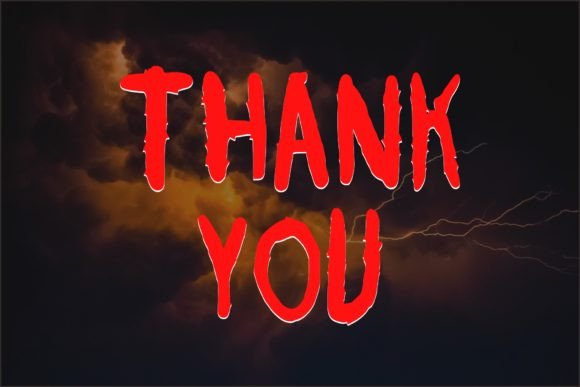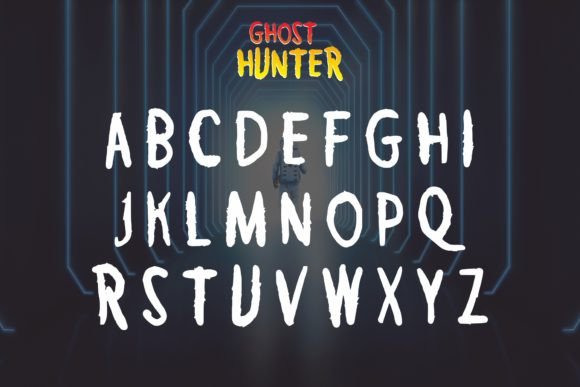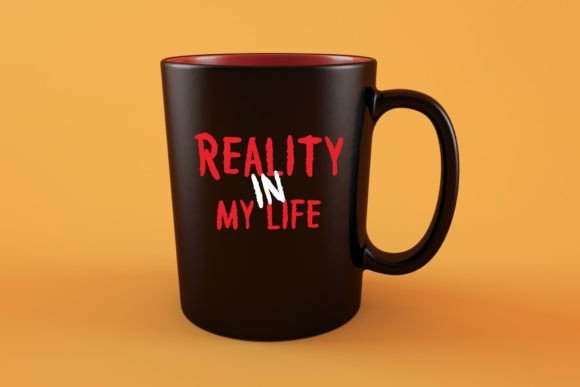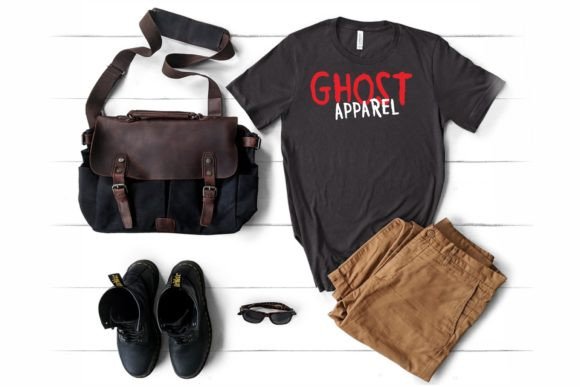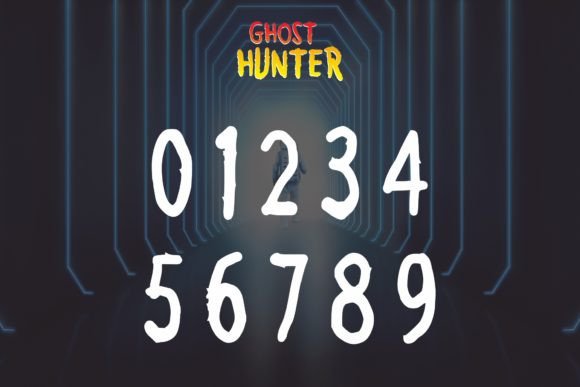
Unleash the Spookiness: Exploring the Ghost Hunter Font
Are you a designer or crafter looking for a font that can add a touch of spookiness and fun to your artwork? Look no further than the Ghost Hunter Font. This display font is perfect for creating eye-catching cover designs, advertisements, t-shirts, and other creative projects. In this article, we’ll dive into the world of Ghost Hunter Font and explore its features, uses, and benefits.
What is Ghost Hunter Font?
Ghost Hunter Font is a unique and captivating display font that is designed to evoke a sense of spookiness and playfulness. Its distinctive style makes it perfect for projects that require a bold and attention-grabbing look. Whether you’re working on a Halloween-themed design or simply want to add some edge to your artwork, Ghost Hunter Font is an excellent choice.
Key Features of Ghost Hunter Font
- Spine-Chilling Style: Ghost Hunter Font boasts a spooky yet fun design that is sure to send shivers down the spine. Its bold and edgy style makes it perfect for creating designs that require a touch of eeriness.
- Versatility: This font is incredibly versatile and can be used for a wide range of projects, including cover designs, advertisements, t-shirts, and more.
- Easy to Read: Despite its bold and edgy style, Ghost Hunter Font is surprisingly easy to read, making it perfect for designs that require a clear and concise message.
- High-Quality Design: Ghost Hunter Font is designed with high-quality and precision, ensuring that it looks great in any size or format.
Uses of Ghost Hunter Font
Ghost Hunter Font is an incredibly versatile font that can be used for a wide range of projects, including:
- Cover Designs: Create eye-catching book covers, movie posters, and album art with Ghost Hunter Font.
- Advertisements: Use Ghost Hunter Font to create bold and attention-grabbing ads for Halloween-themed events, haunted houses, or spooky-themed products.
- T-Shirts and Merchandise: Design spooky and fun t-shirts, hoodies, and other merchandise with Ghost Hunter Font.
- Social Media Graphics: Create spooky and engaging social media graphics, such as Halloween-themed Facebook posts or Instagram stories.
Benefits of Using Ghost Hunter Font
So, why should you choose Ghost Hunter Font for your next project? Here are just a few benefits of using this amazing font:
- Stand Out from the Crowd: Ghost Hunter Font is a unique and eye-catching font that is sure to make your designs stand out from the crowd.
- Save Time and Effort: With Ghost Hunter Font, you can create professional-looking designs in no time, saving you time and effort.
- Perfect for Seasonal Projects: Ghost Hunter Font is perfect for Halloween-themed projects, but it’s also versatile enough to be used for other seasonal designs, such as Christmas or Easter.
Tips and Tricks for Using Ghost Hunter Font
Here are a few tips and tricks for getting the most out of Ghost Hunter Font:
- Experiment with Colors: Ghost Hunter Font looks great in a variety of colors, so don’t be afraid to experiment and find the perfect hue for your design.
- Pair with Other Fonts: Ghost Hunter Font pairs well with other fonts, so try combining it with a sans-serif font for a bold and eye-catching look.
- Use it Sparingly: Ghost Hunter Font is a bold and attention-grabbing font, so use it sparingly to avoid overwhelming your design.
Ghost Hunter Font is a spooky yet fun display font that is perfect for designers and crafters looking to add a touch of eeriness to their artwork. With its versatile design, ease of use, and high-quality style, Ghost Hunter Font is an excellent choice for a wide range of projects. Whether you’re working on a Halloween-themed design or simply want to add some edge to your artwork, Ghost Hunter Font is sure to deliver. So why wait? Download Ghost Hunter Font today and unleash the spookiness in your designs!